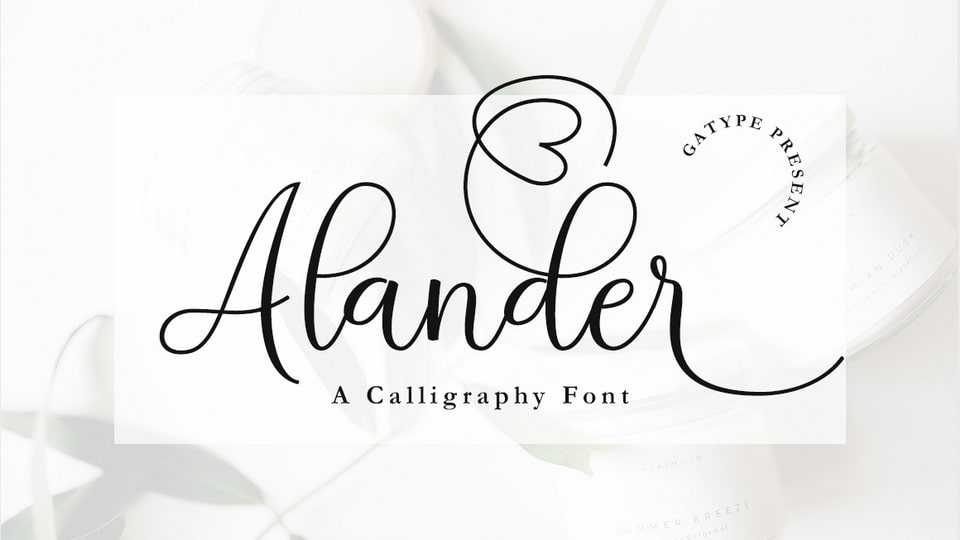
Download Alander font, a script, suitable for creating text-based logos. Various alternatives and fasteners allow you to create a unique logo that better represents your product.